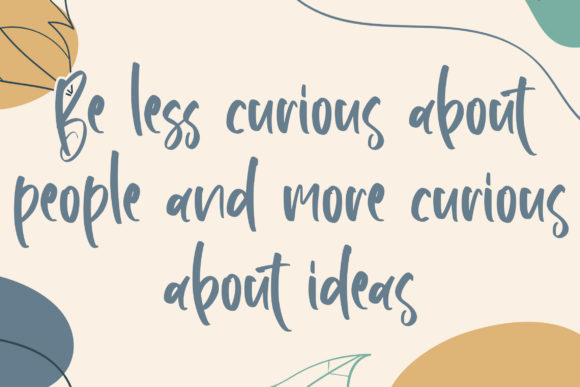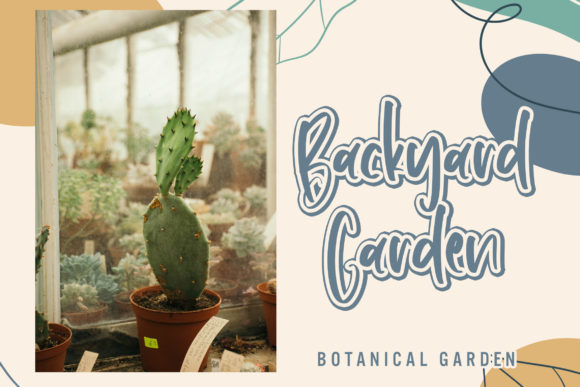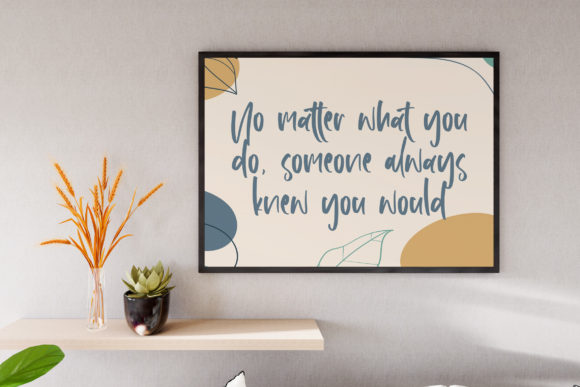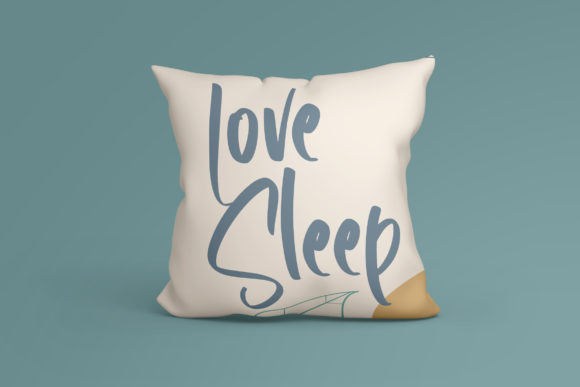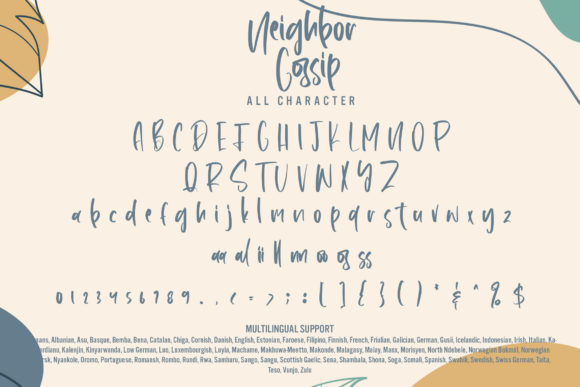
Introduction to Neighbor Gossip Font
You know that moment when you’re brainstorming ideas for your next creative project, and the perfect design element just slips into place, making everything come together seamlessly? That’s exactly what happened when I stumbled upon the Neighbor Gossip Font. This stylish script font has been a game-changer for me, and I’m excited to share its awesomeness with you.
Neighbor Gossip Font is a must-have design resource for any creative project that needs a touch of elegance and sophistication. With its smooth curves and chic aesthetic, it’s perfect for fashion branding, editorial designs, or any project where you want to make a statement. And the best part? It’s available for free download, so you can add it to your design arsenal without breaking the bank.
Whether you’re a seasoned designer or just starting out, Neighbor Gossip Font is a valuable addition to your toolkit. Its high-quality design and transparent background make it easy to integrate into any project, and its stylish touch is sure to elevate your work to the next level.
Key Features of Neighbor Gossip Font
- High-quality, unique font design ideal for creative projects and design resources
- Unique characteristics and flair perfect for adding a touch of personality to any project
- Designed to be highly legible and versatile, making it suitable for various design projects, from logos to editorial content
Honest Review: Neighbor Gossip Font
I recently stumbled upon the Neighbor Gossip Font, and I’m excited to share my thoughts on this design resource. As a designer, I’m always on the lookout for high-quality fonts that can elevate my creative projects.
Here are some things that work well with the Neighbor Gossip Font: ✨
- Unique and playful aesthetic
- Perfect for creating eye-catching headings and titles
- Works well with a variety of design styles
However, I did notice a few limitations: ⚠️
- The font may not be suitable for formal or professional projects
- Some characters may be missing or incomplete
Overall, I’m impressed with the Neighbor Gossip Font, and I think it’s a great addition to any designer’s toolkit. With its free download option and transparent background, it’s a great resource for creative projects. While it may have some limitations, I think it’s definitely worth checking out.
How to Use Neighbor Gossip Font
Tips for Getting the Most Out of Neighbor Gossip Font
To get the most out of Neighbor Gossip Font, experiment with different font sizes, colors, and combinations. You can also use it in conjunction with other design elements, such as graphics or images, to create a unique and eye-catching design.
The Neighbor Gossip Font is perfect for a variety of creative projects, including social media graphics, blog posts, and even print materials like business cards or brochures. Its versatility and high quality make it a valuable addition to any design arsenal.